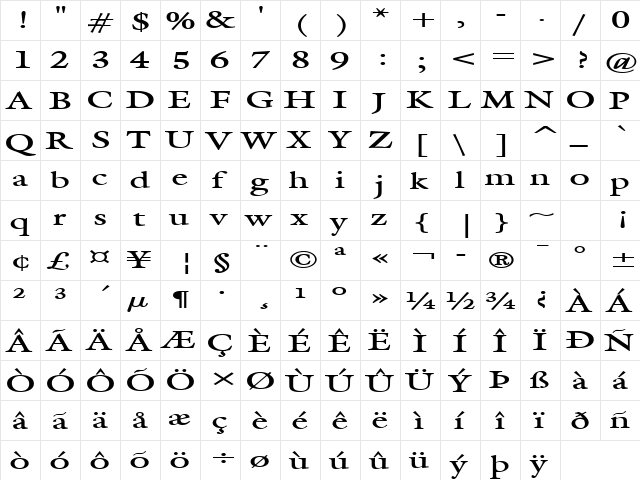
Galant Extended Bold
Design Context for Galant Extended Typeface
Galant Extended is a composed and adaptable typeface that performs quietly and consistently across a wide range of design contexts. The heavy weight commands attention and anchors typographic hierarchies.